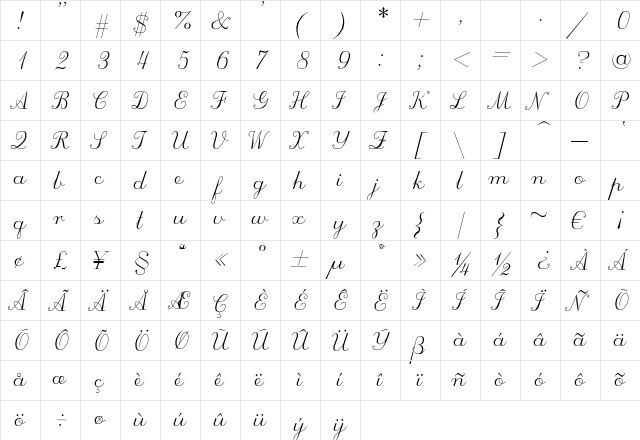
ScriptC Regular
Design Context for ScriptC Typeface
ScriptC brings a calligraphic fluidity to the page — its connecting strokes and expressive curves give it an unmistakably human quality.
Font Pairing: Combine ScriptC with a simple geometric sans for maximum contrast — the tension between flowing curves and clean structure is a classic typographic pairing.
Pro Tip: Pair ScriptC with a clean sans-serif for supporting text. The contrast between fluid script and geometric structure creates an elegant typographic hierarchy.